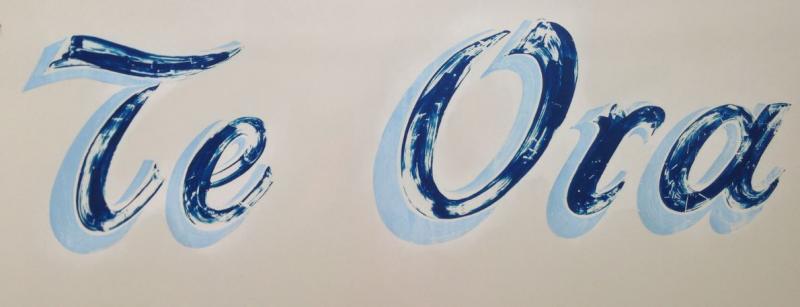
is this a font
Is this a font? If so what one?
The weathered brush strokes might give you a clue that this is hand lettered. When you hand letter stuff like this unless you're operating under some sort of specification that requires you to cleave to a specific type face or another, you usually just make it up as you go along.